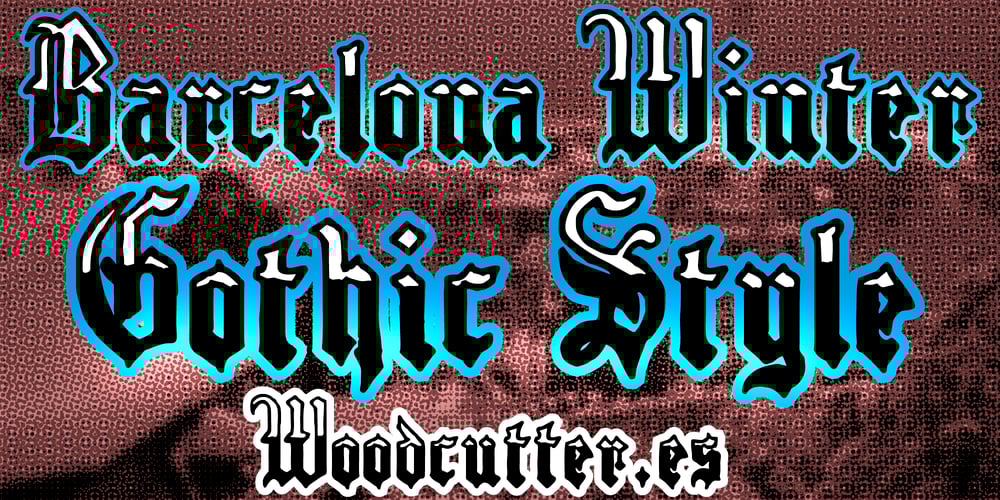
Barcelona Winter Font Family was designed by Jordi Manero and published by Woodcutter. Barcelona Winter contains 1 styles and family package options. “Barcelona Winter” is a hand-decorated Gothic font, known for its elegance and artistic detail. Each letter features a different tone, adding a unique visual dynamism. Perfect for projects seeking a touch of sophistication and mystery, this typeface stands out in invitations, posters, and logos. “Barcelona Winter” evokes the winter beauty and rich history of the city, blending tradition and modernity in a captivating design that captures the essence of Catalan Gothic.